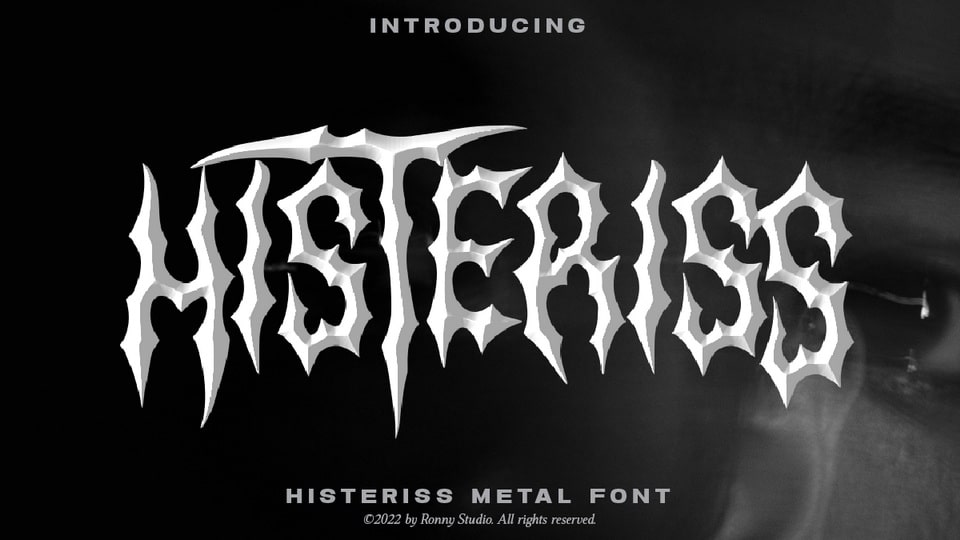
Download Hysteriss font, a cool alternative for you to easily create a logo for your Underground band or whatever. Using alternate letters in the middle of a word will bring the font to life and will look cooler and fiercer.